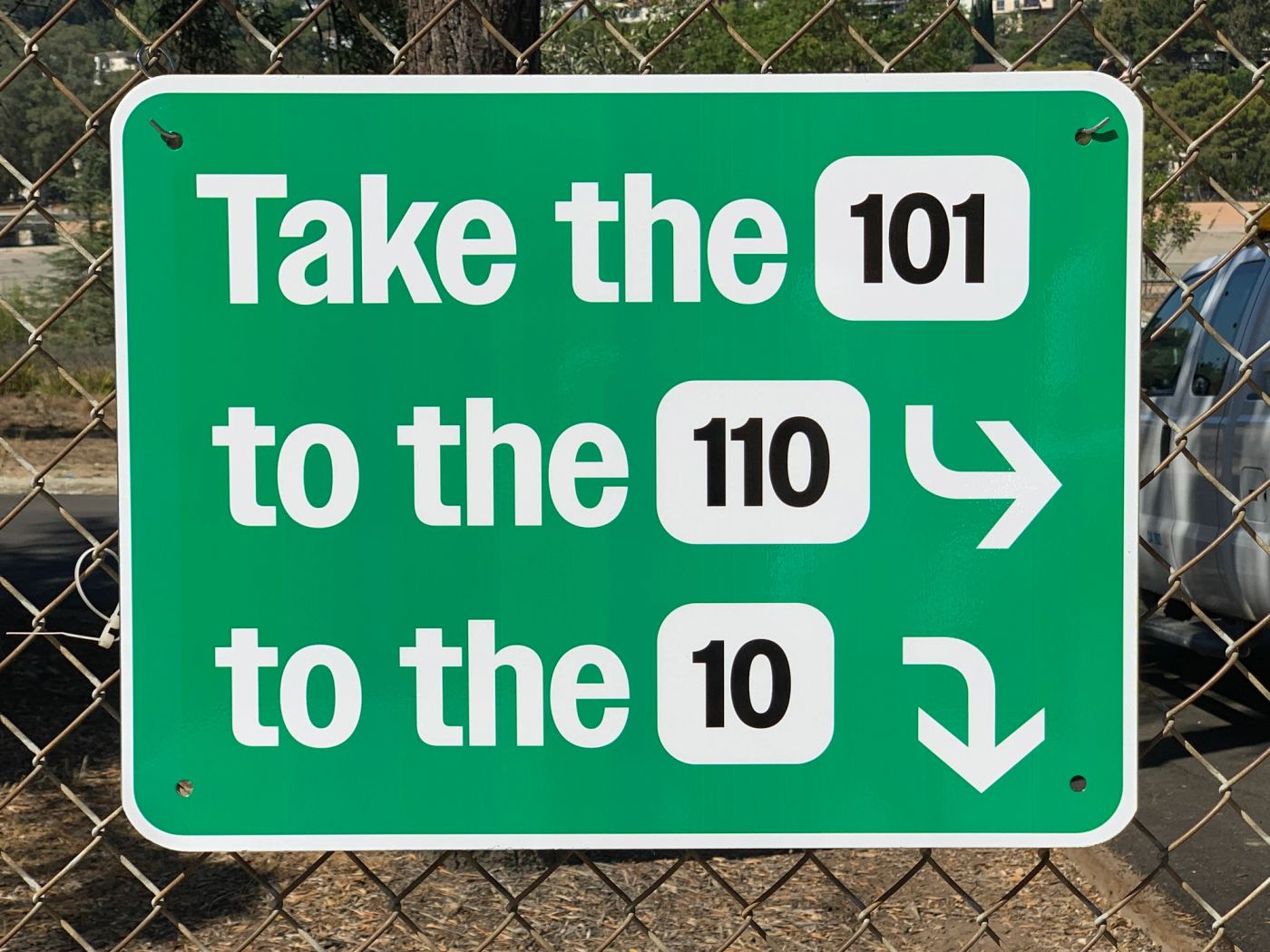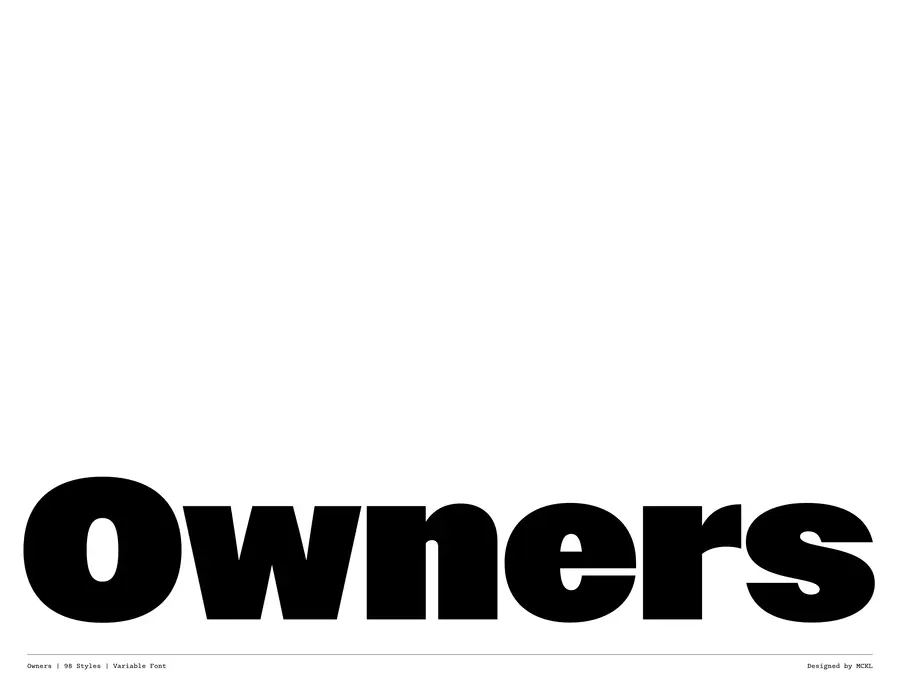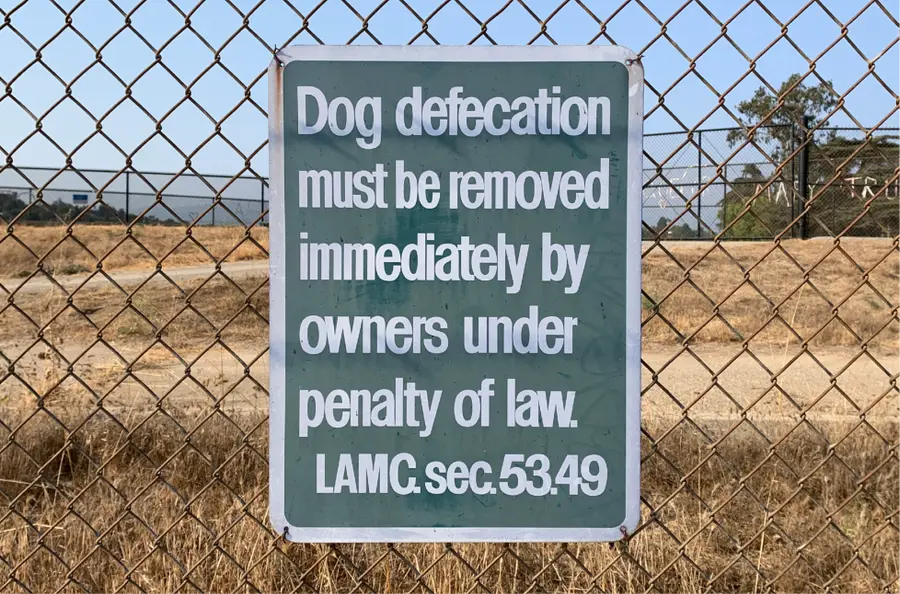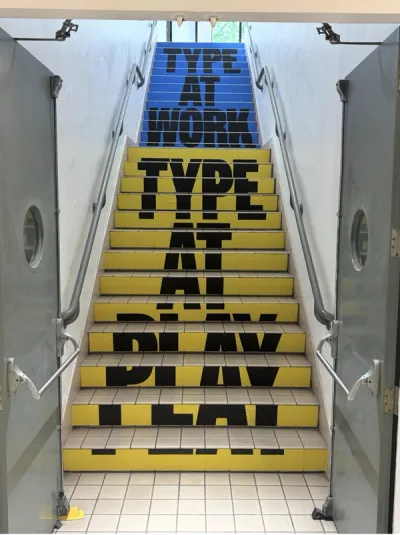
Owners
- 98 styles 7 widths, 8 weights each Roman and Italic
- Designed by Jeremy Mickel Published in 2021
Owners is an expressive family of fonts that takes inspiration from the dynamic energy of handmade signage as seen around Los Angeles. These signs were made in the International Style, but warmed up through the quirk and charm of vernacular signmakers’ unique approaches to letterform construction.
As signs come in all shapes and sizes, the letters are often stretched to fill necessary spaces, thus Owners has a diverse range of weights and widths. The fonts are set tightly for maximum headline impact and logo-like presence, and there are also Text versions for use at small sizes.